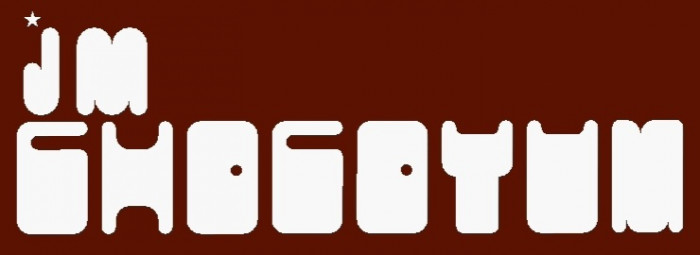
• Squish Candy by the Factory!
Brown and Creamy!
CHOCOLATE?!!???!?!?
9/10
Yeeeees
Also I said "CHOCOLATE" for the sake of referencing a SpongeBob meme
Hey, what did you make a meme in this FONT?!